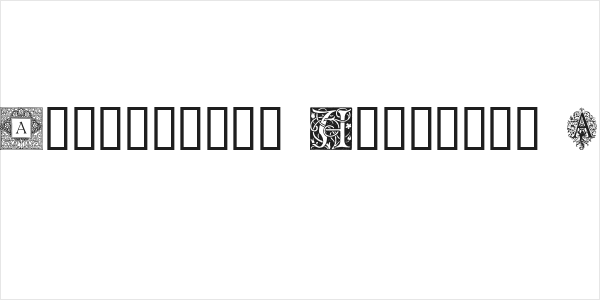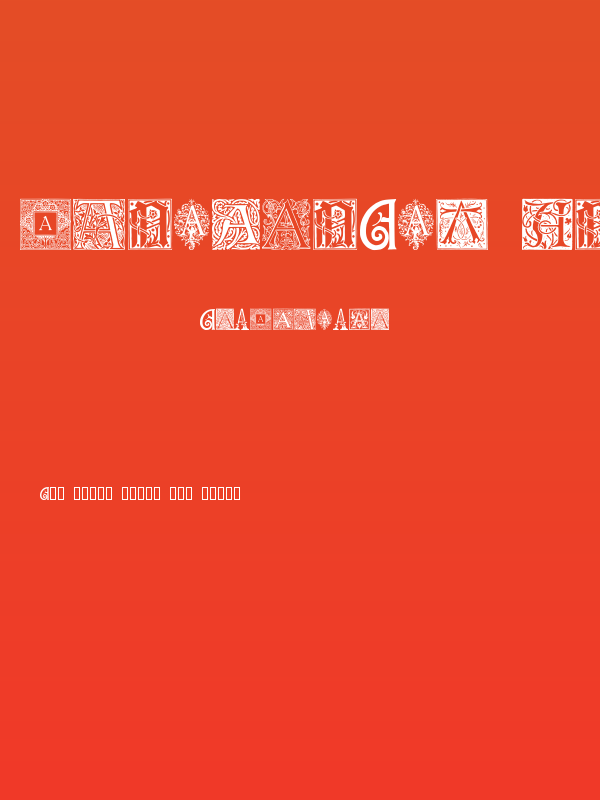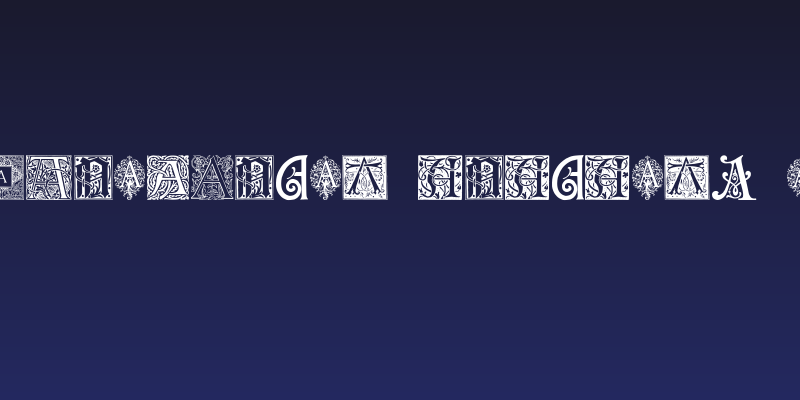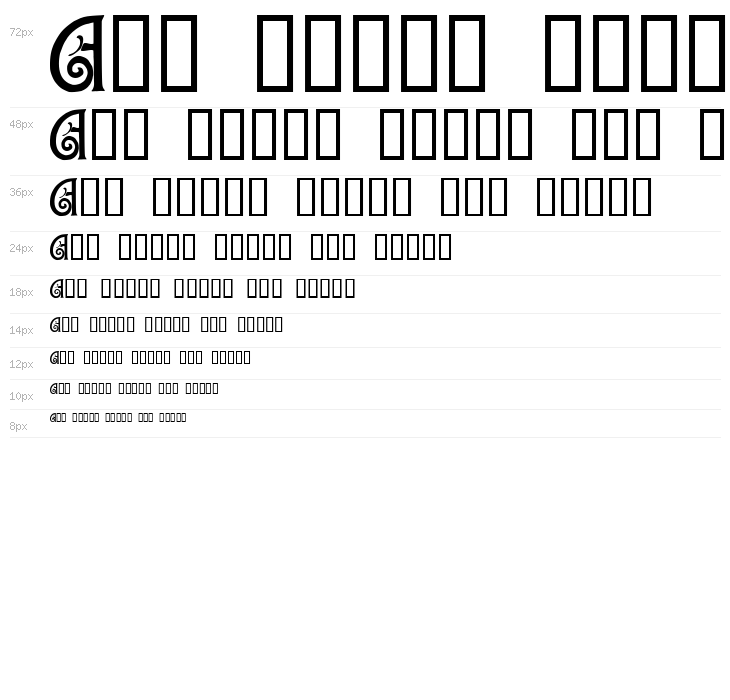
Ornamental Initials A Font
Ornamental Initials A Description
This font is a highly decorative and ornamental style, characterized by intricate and elaborate designs within each letter. Each character is framed and embellished with floral and geometric patterns, creating a sense of elegance and sophistication. The letters are uppercase and designed to be used as initials, making them ideal for decorative purposes. The style is reminiscent of medieval manuscripts, with a strong emphasis on artistic detail and craftsmanship. The font is not suitable for body text due to its complexity but serves as a striking choice for decorative headings or artistic projects.
| Proposed Projects | Ideal for use in wedding invitations, book covers, greeting cards, and any project requiring a touch of elegance and historical charm. |